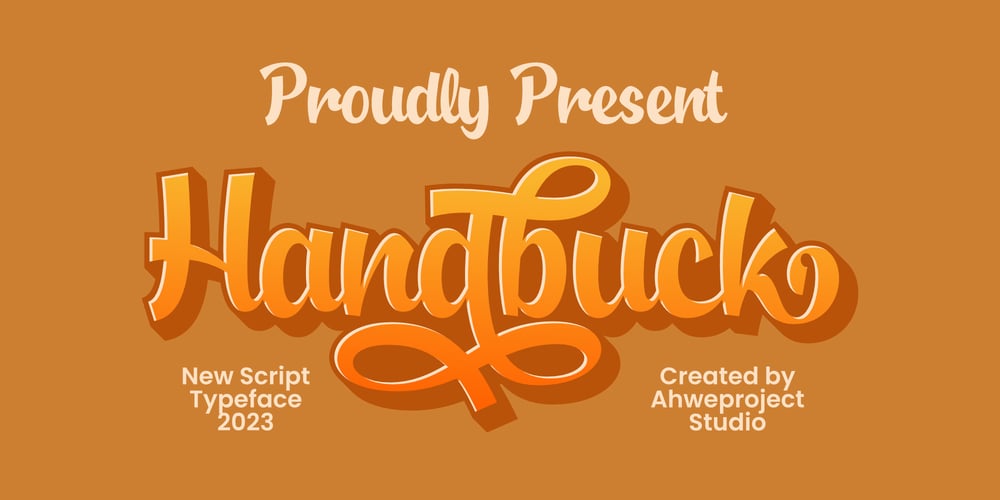
Handbuck
Handbuck font
Handbuck Font Family was designed by Dida Ahluddin and published by ahweproject. Handbuck contains 2 styles and family package options. Handbuck is a stunning display script font that seamlessly blends classic and modern design elements to create a unique and stylish typeface. This font is perfectly made to be applied especially in logos, and other various formal forms such as invitations, labels, logos, magazines, books, greeting/wedding cards, packaging, fashion, makeup, stationery, novels, labels, or any type of advertising purpose.This font is PUA encoded which means you can access all of the amazing glyphs and ligatures with ease!